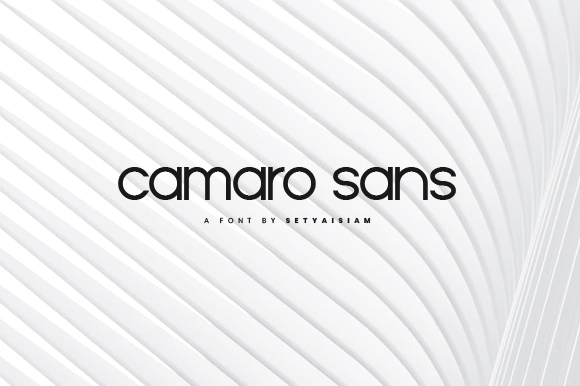
The Camaro Font: A Timeless Classic for Your Designs
A Personal Review: What I Love About Camaro Font
The Camaro Font has quickly become one of my go-to fonts, and for good reason. Here are some things I love about it:
• ✨ Classic yet friendly style: Camaro Font strikes the perfect balance between timeless elegance and approachability.
• ✅ Versatility: This sans serif font is incredibly versatile and can be used for a wide range of design projects, from branding and advertising to packaging and digital media.
• 💡 Inspires creativity: The Camaro Font’s unique character and charm can spark creativity and help you create original and outstanding designs.
While the Camaro Font is an excellent choice for many design projects, there are a few minor quirks to be aware of:
• ⚠️ Not suitable for body text: Due to its elegant and refined nature, the Camaro Font may not be the best choice for body text or long-form content.
The Designer Inspiration Behind Camaro Font
The Camaro Font was designed with the goal of creating a timeless and elegant sans serif font that would be perfect for a wide range of design projects. The designer drew inspiration from classic typography and combined it with modern elements to create a unique and refined font.
What is the Camaro Font? The Camaro Font is a sans serif font that features a classic yet friendly style, making it perfect for creating original and outstanding designs.
Is the Camaro Font suitable for body text? No, the Camaro Font is not suitable for body text or long-form content. It’s best used for headings, titles, and short-form text.
Is the Camaro Font available in different weights and styles? Yes, the Camaro Font is available in different weights and styles, making it versatile and suitable for a wide range of design projects.